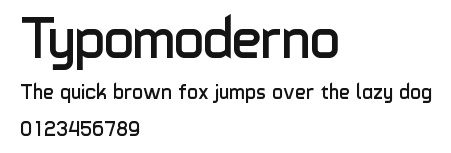
• Font Name: Typomoderno
• Designer: Yun González
About Typomoderno.ttf
Typomoderno.ttf is a modern, elegant sans-serif font designed for ultimate readability and visual harmony. Perfect for branding, headlines, web design, and print materials.